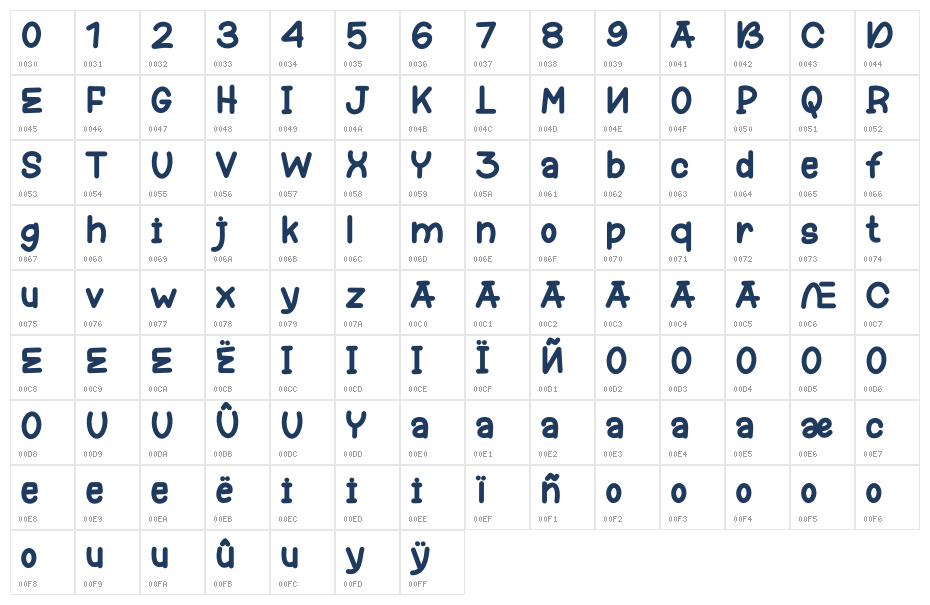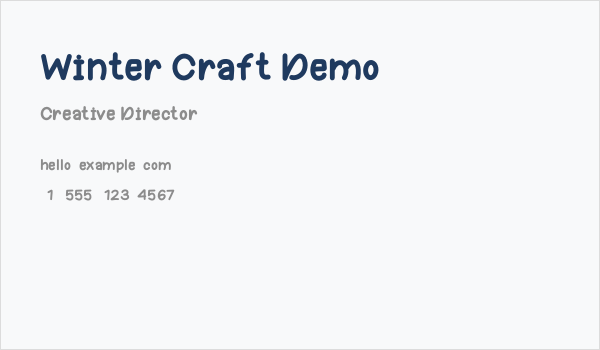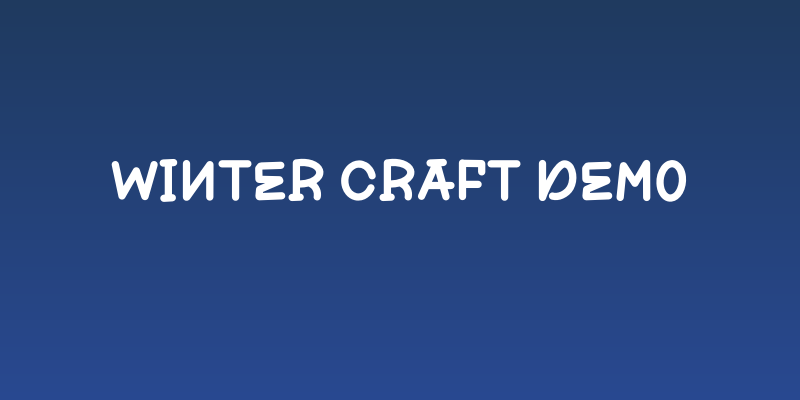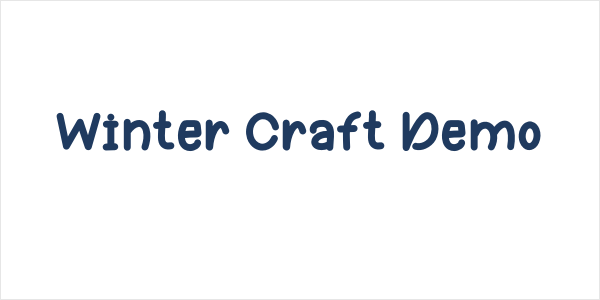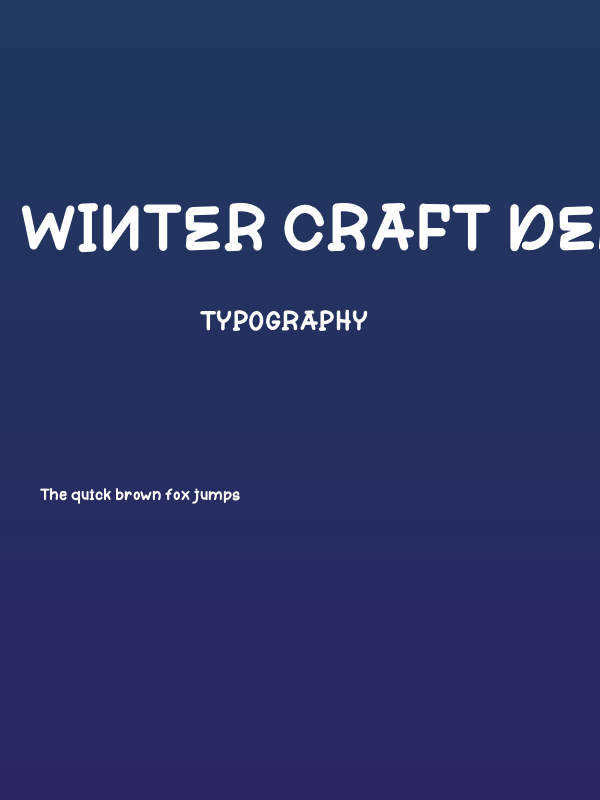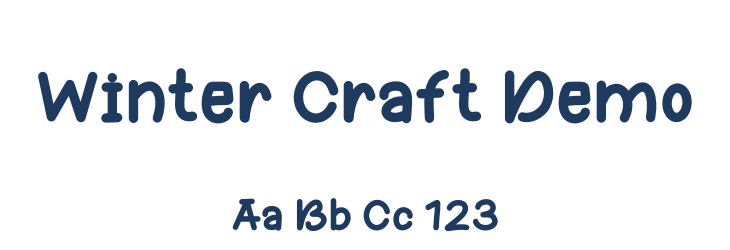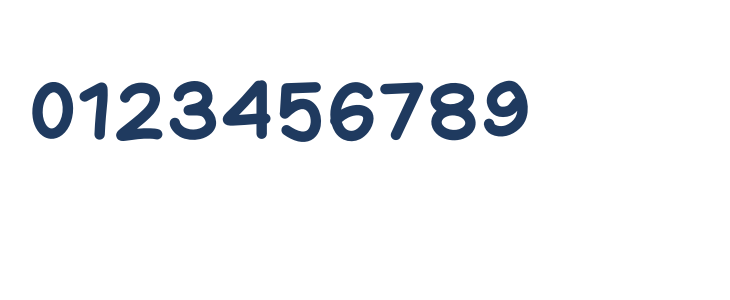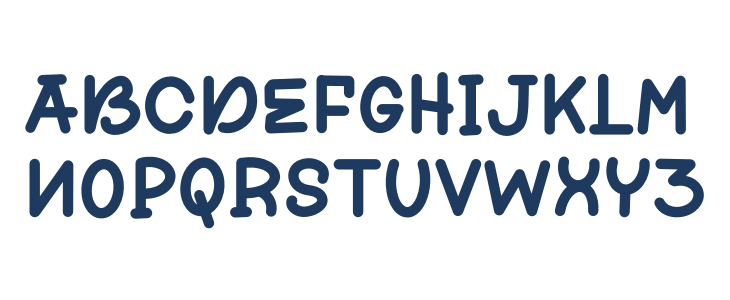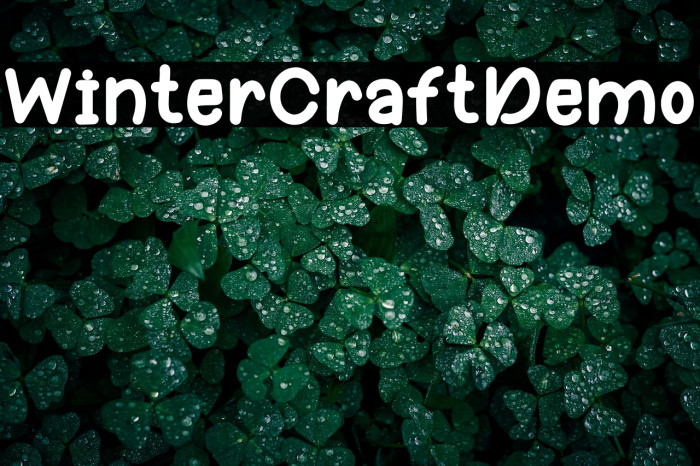
Winter Craft Demo Font
Winter Craft Demo Description
A playful, rounded, and bold sans-serif font with a casual and friendly appearance.
| Overall Style | Casual, Friendly, Modern |
| Use Case | Headlines, Logos, Children's materials |